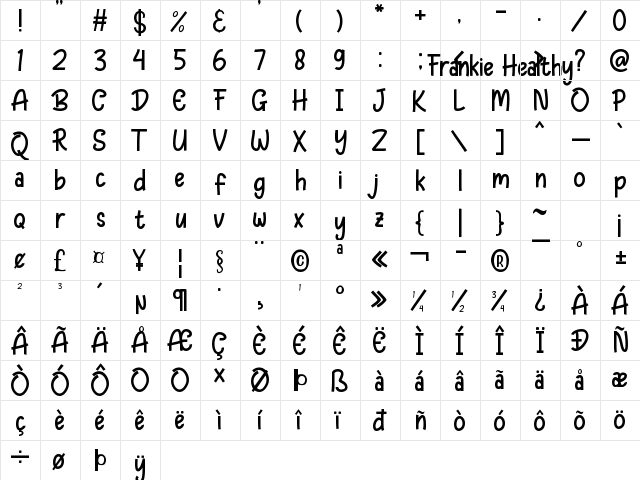
Frankie Healthy Regular
| Designer | Pandanwangi 2020 |
Design Context for Frankie Healthy Typeface
Frankie Healthy takes a measured approach to typography — its balanced proportions and neutral character make it a reliable workhorse for both digital and print work.